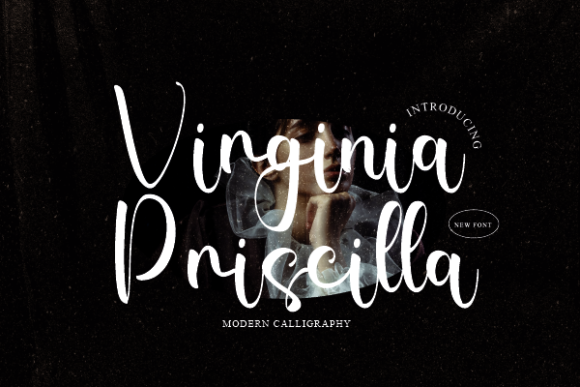
Behold Virginia Priscilla, a stunning script font that dances on the page with elegance and grace. Its delicate strokes and flowing curves bring a touch of sophistication and charm to any digital creation. Immerse yourself in the beauty of Virginia Priscilla and let your imagination take flight.
This versatile script font is a treasure trove for modern UI designers seeking to leave a lasting impression. Its graceful presence lends itself effortlessly to captivating logos, branding projects that radiate individuality, and labels that demand attention. Capture the essence of special events with Virginia Priscilla, allowing the font's enchanting personality to elevate your designs to new heights.
Unleash your creativity and explore the endless possibilities that await you with Virginia Priscilla. Whether you're designing social media posts that captivate your audience, crafting website layouts that inspire, or creating digital art that tells a story, this font will be your trusted companion. Its versatility and charm will transform your designs into masterpieces that resonate with your audience.
With Virginia Priscilla, you're not just downloading a font; you're embracing an experience. Experience the joy of effortless design as you watch your creative vision come to life. Experience the satisfaction of witnessing your designs captivate and engage your audience. Experience the power of Virginia Priscilla as it propels your work to new heights of success.
Step into a world of elegance and sophistication with Virginia Priscilla. Embrace the beauty of this exquisite script font and let it transform your digital creations into works of art. Join the creative revolution and unlock the boundless potential that awaits you.